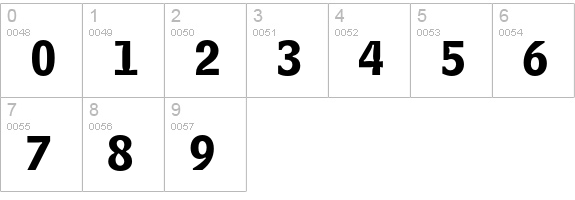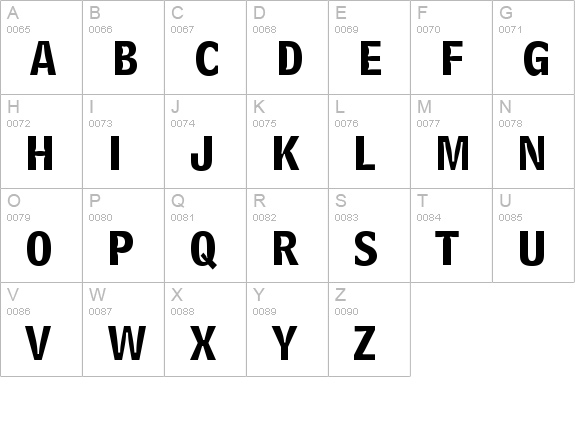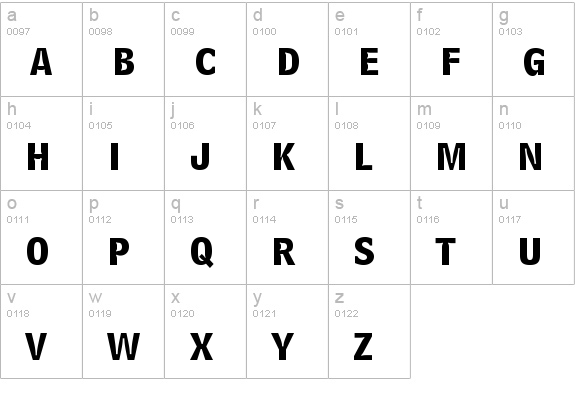
Bell Centennial Bold Listing Alternate Font Details
Bell Centennial Bold Listing Alternate is a strong, high-contrast variant in the Bell typeface family \xE2\x80\x94 well suited to headlines, attention-grabbing titles, and strong calls-to-action.
Bell Centennial Bold Listing Alternate font is a modern and versatile typeface designed for clear and impactful text display. With its bold and distinctive letterforms, this font is perfect for creating eye-catching headlines and labels. The alternate version adds a unique twist to the traditional Bell Centennial font, making it stand out even more. Whether you're designing posters, flyers, or packaging, this font will ensure that your message is seen and understood. Best of all, Bell Centennial Bold Listing Alternate font is available for free download at FontsMarket.com. Simply visit the website to access this stylish and professional font at no cost. Don't miss the opportunity to enhance your designs with this exceptional typeface today!